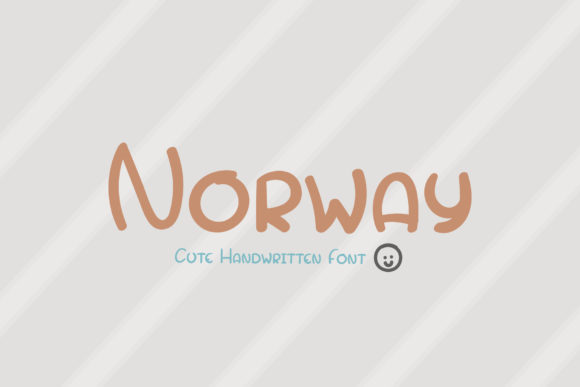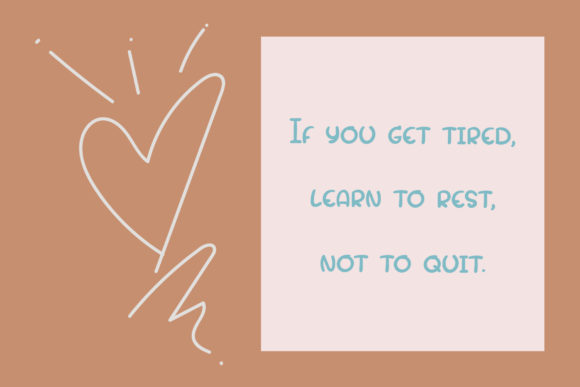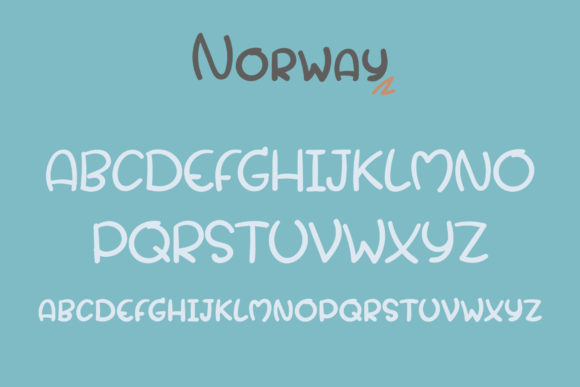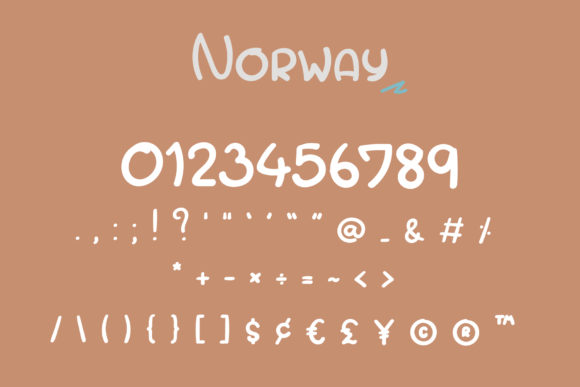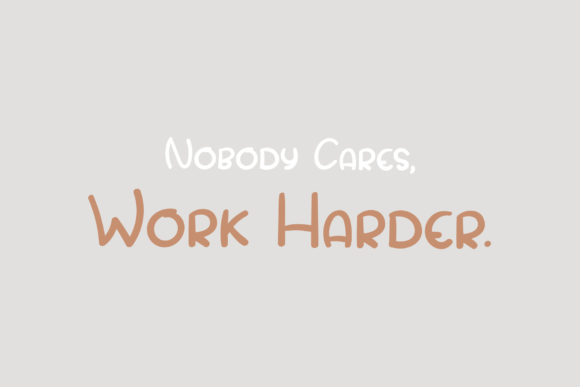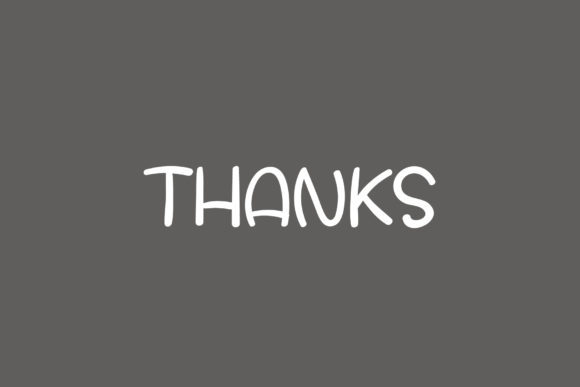
Norway Font
About Norway Font
Norway is a cute and casual handwritten font with an incredibly friendly feel. Whether you’re looking for fonts for Instagram or calligraphy scripts for DIY projects, Norway will turn any creative idea into a true piece of art!